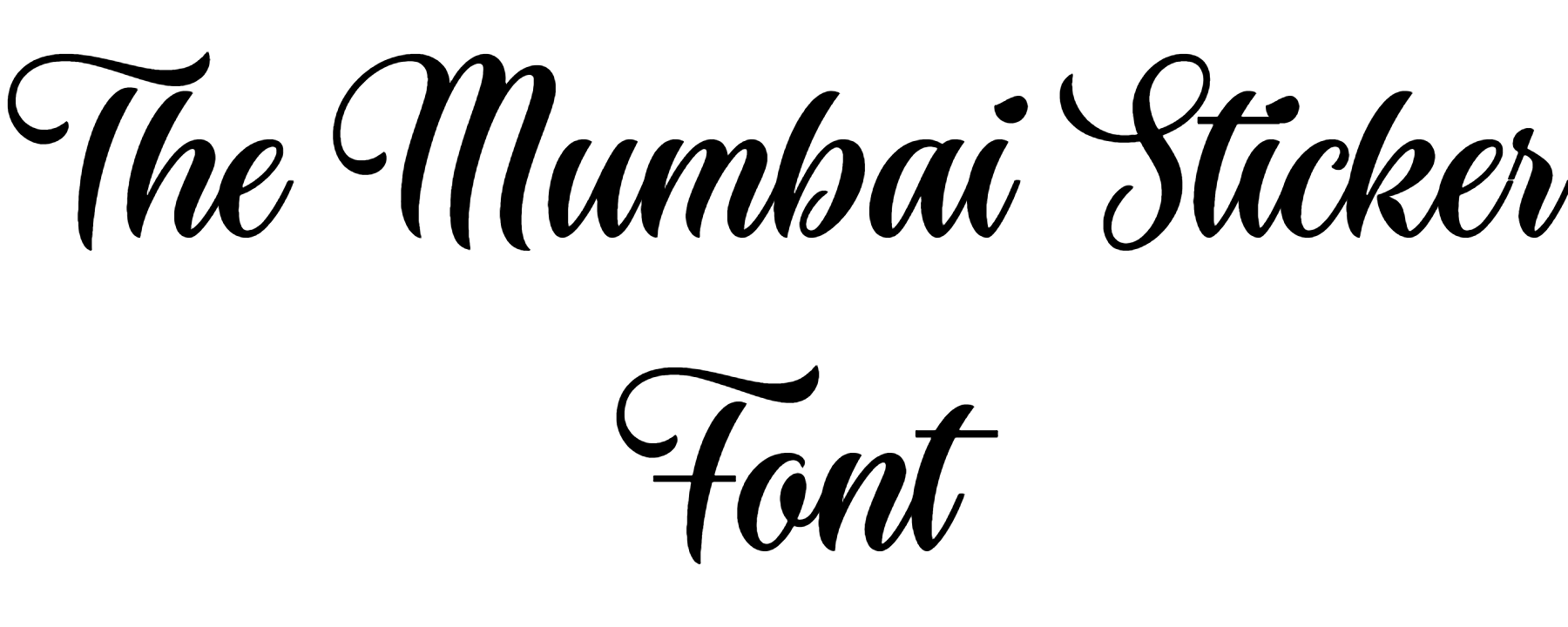
The Mumbai Sticker
The Mumbai Sticker is a calligraphy font created by Roland Huse (2019). Its flowing, pen-made letters give names and short phrases a personal, polished look. You get two styles in one free ZIP, and the preview above lets you test each one before you download.
What You Can Type With The Mumbai Sticker
The Mumbai Sticker covers the full alphabet in upper and lowercase, plus all ten numbers, so you can set names, dates and prices without switching fonts. Common punctuation such as ! and ? is included as well. It doesn't include accented letters such as é or ñ, which makes it an English-only font.
Ligatures and Smart Letters in The Mumbai Sticker
Where The Mumbai Sticker Works Best
Designers usually reach for fonts like The Mumbai Sticker when they're making wedding invitations, certificates and elegant quotes. Script fonts read best in short bursts, so keep it to names, titles and one-line quotes. Skip all caps: script capitals are drawn to start a word, not to fill one. Because the family has more than one style, you can mix them in a single design for headings, subheadings and highlights.
Does The Mumbai Sticker have ligatures?
Yes. The Mumbai Sticker has ligatures that turn on by themselves in most design apps and browsers, so you don't need to do anything special.
Does The Mumbai Sticker support accented letters?
No. The Mumbai Sticker has no accented letters such as é, ñ or ü, so it's best for English text.